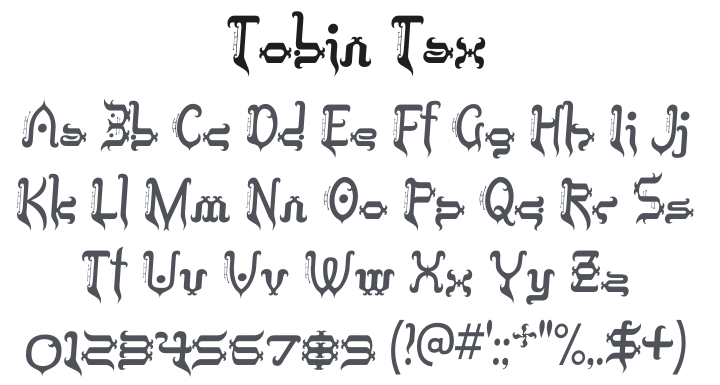
Tobin Tax Font
About Tobin Tax
Tobin Tax is a bold, ornate display typeface where gothic blackletter structure collides with intricate Art Nouveau flourishes — sweeping curves, decorative notches, and tiny ornamental details adorn every letterform, giving it a richly layered, otherworldly elegance. Despite its complexity it remains commanding and legible. Perfect for fantasy game titles, occult branding, luxury packaging, gothic editorial headlines, and any design needing elaborate, darkly beautiful personality.